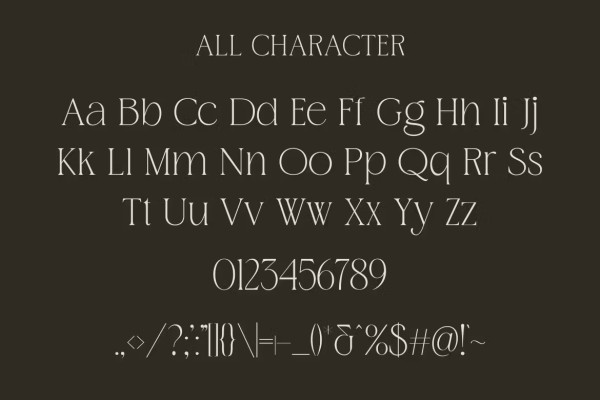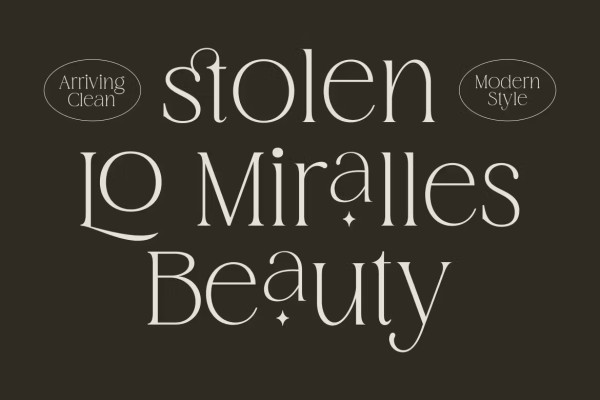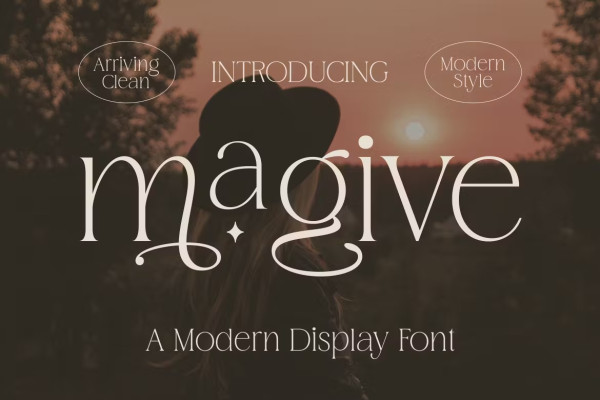
Magive Font
Magive Font – Modern Font is a bold and authentic display font. The font is suitable for any branding project such as logo, Template design, product and many more. She is exceptional in a wide range of contexts